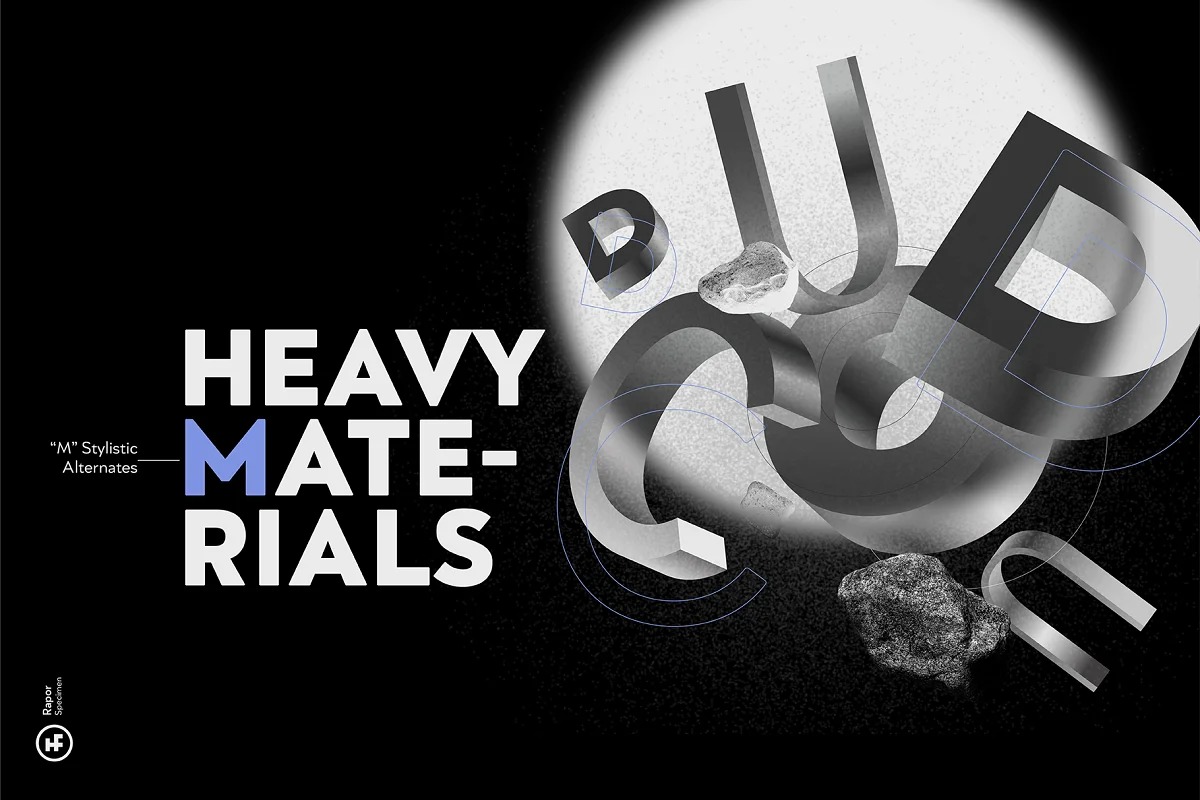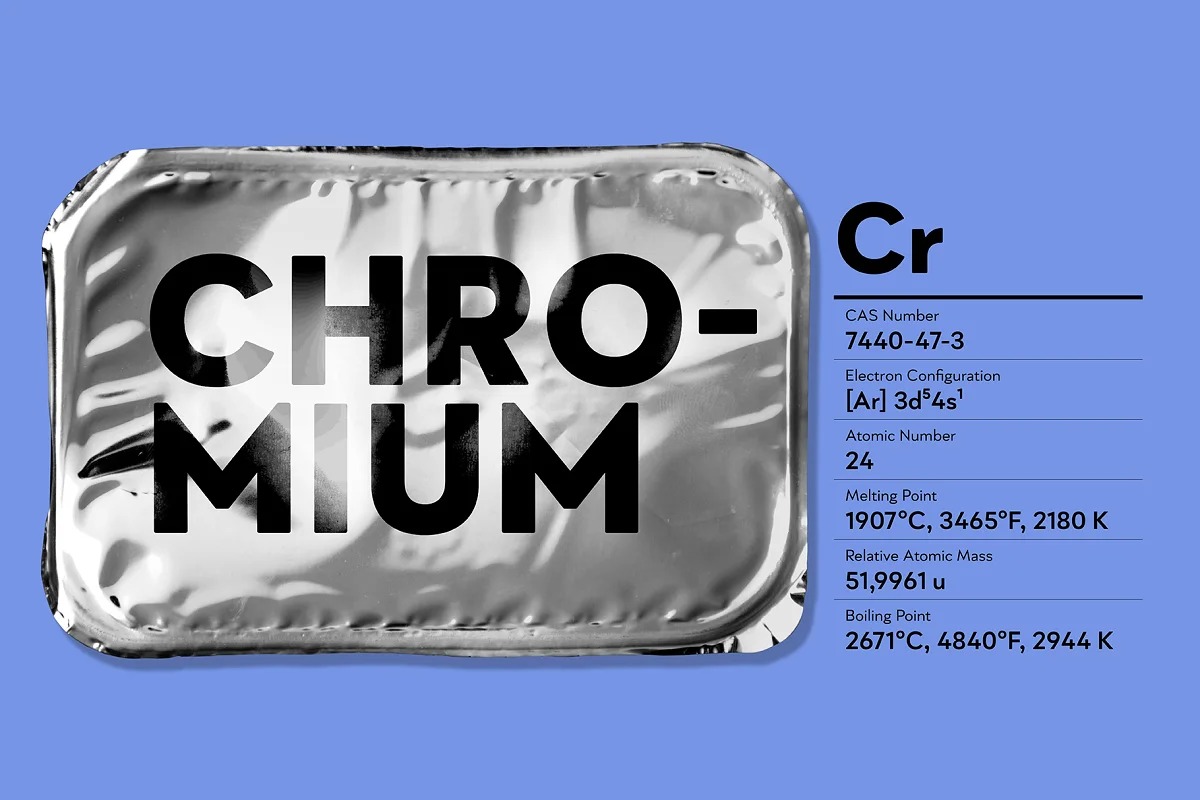
Rapor Font
Rapor Sans Serif Font
It’s a neat and clean variable font, built from a combination of sans serifs with strong gemometric foundations such as Futura, and grotesque fonts based on the equal-width system. Its slightly softened evenly converging diagonal corners add distinctiveness to it.
It has 10 weights ranging from Thin to Black. It consists of twenty styles with matching italics. Rapor is equipped for professional typography with rich opentype features.